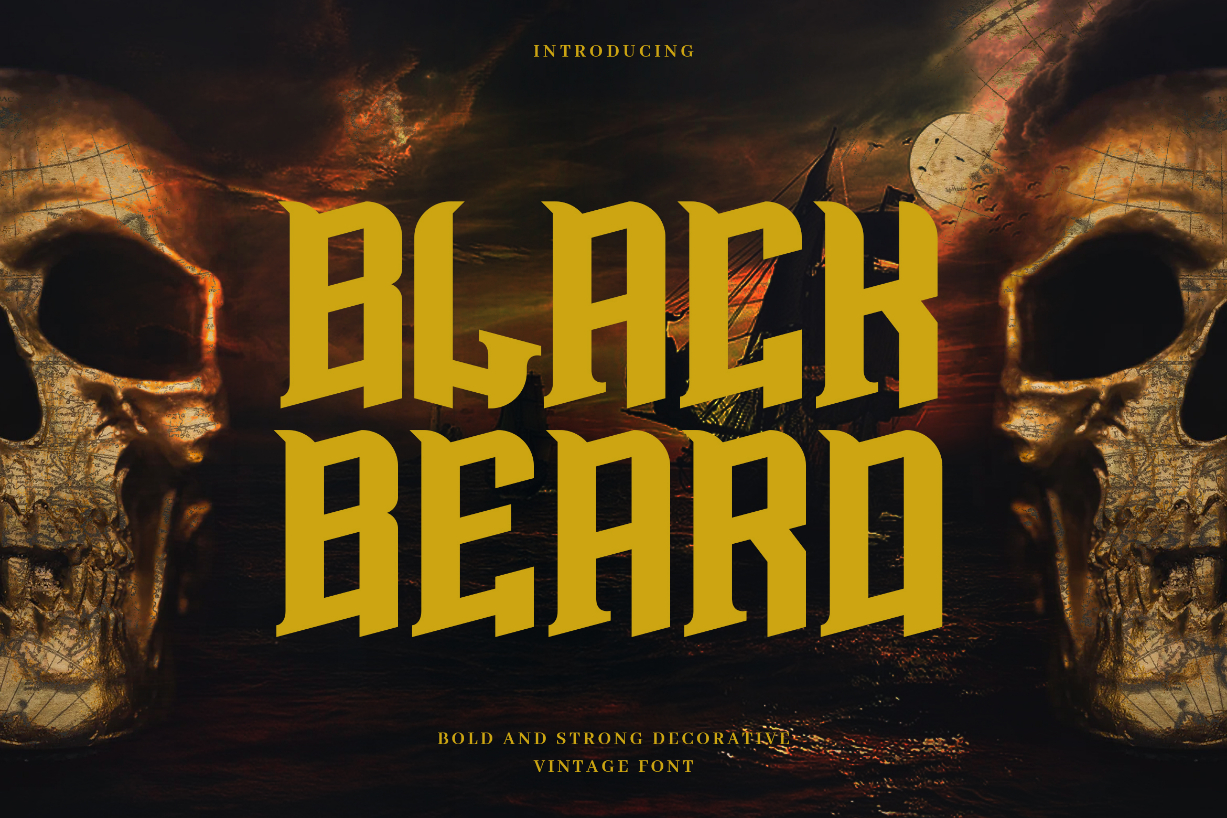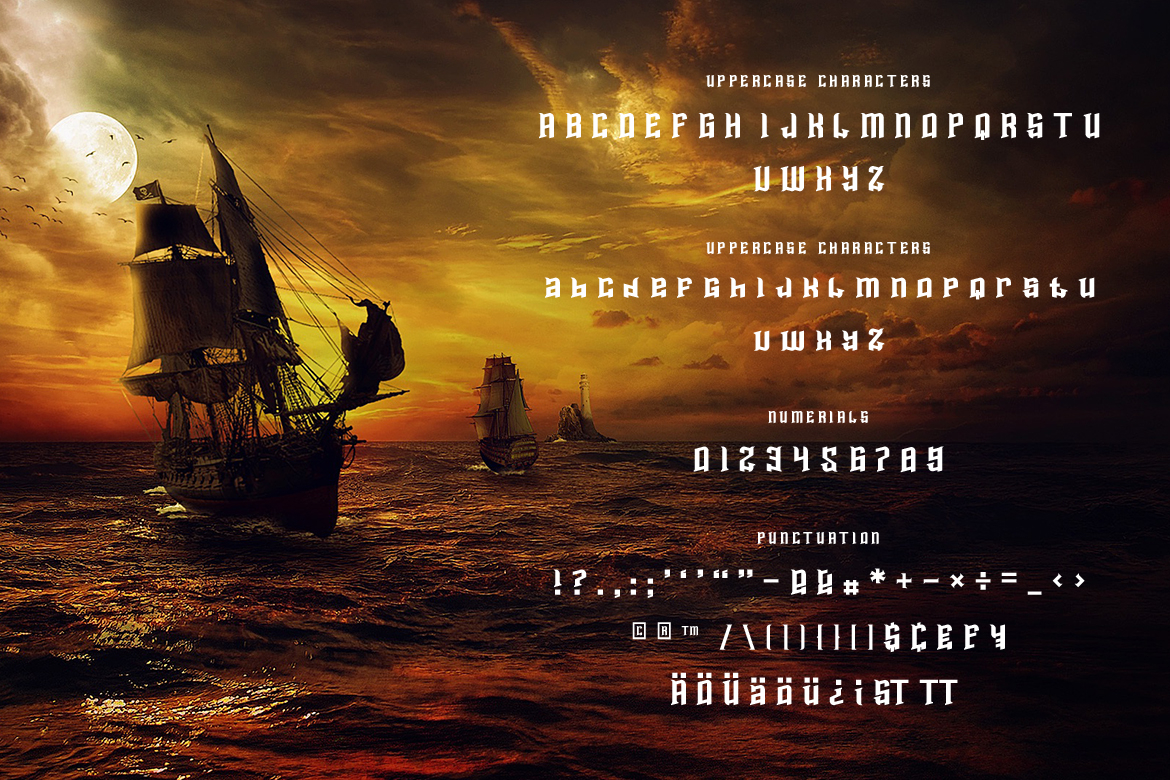
About Blackbeard Font
Blackbeard is a spectacular blackletter font. Incredibly versatile, it fits a wide pool of designs, elevating them to the highest levels. Add this font to your favorite creative ideas and notice how it makes them come alive!